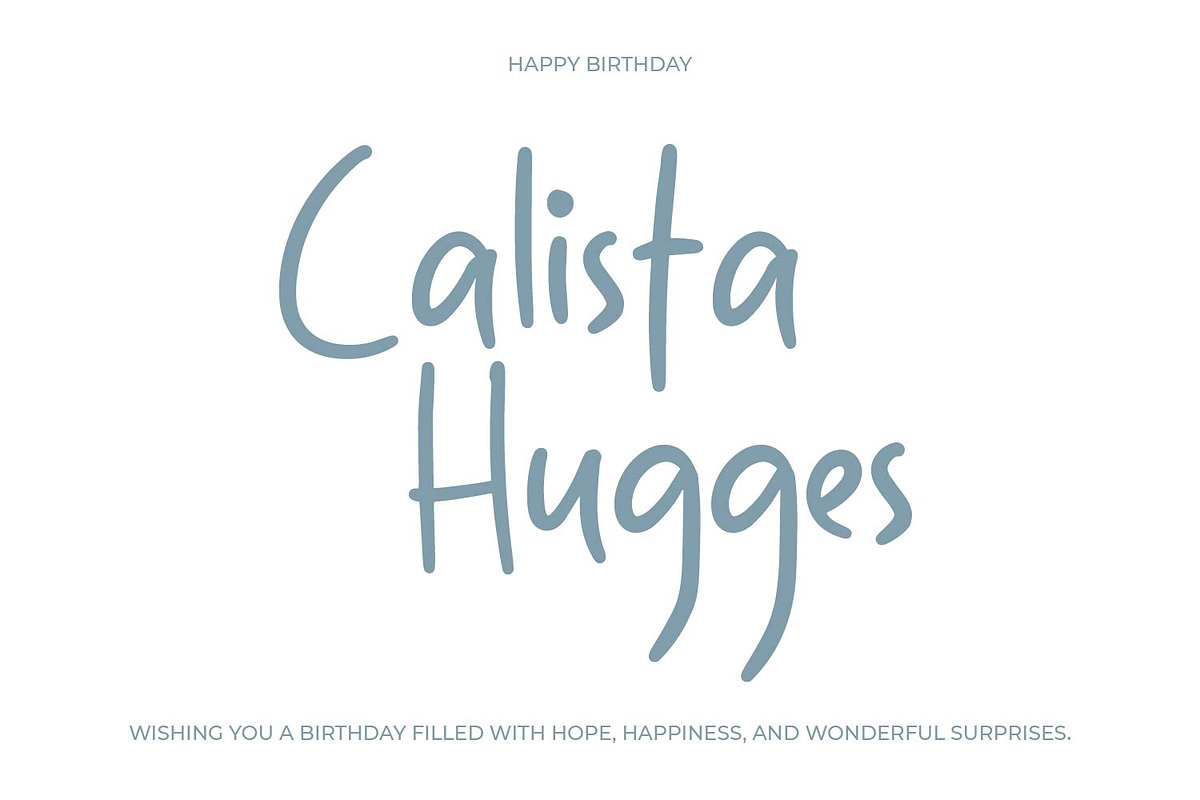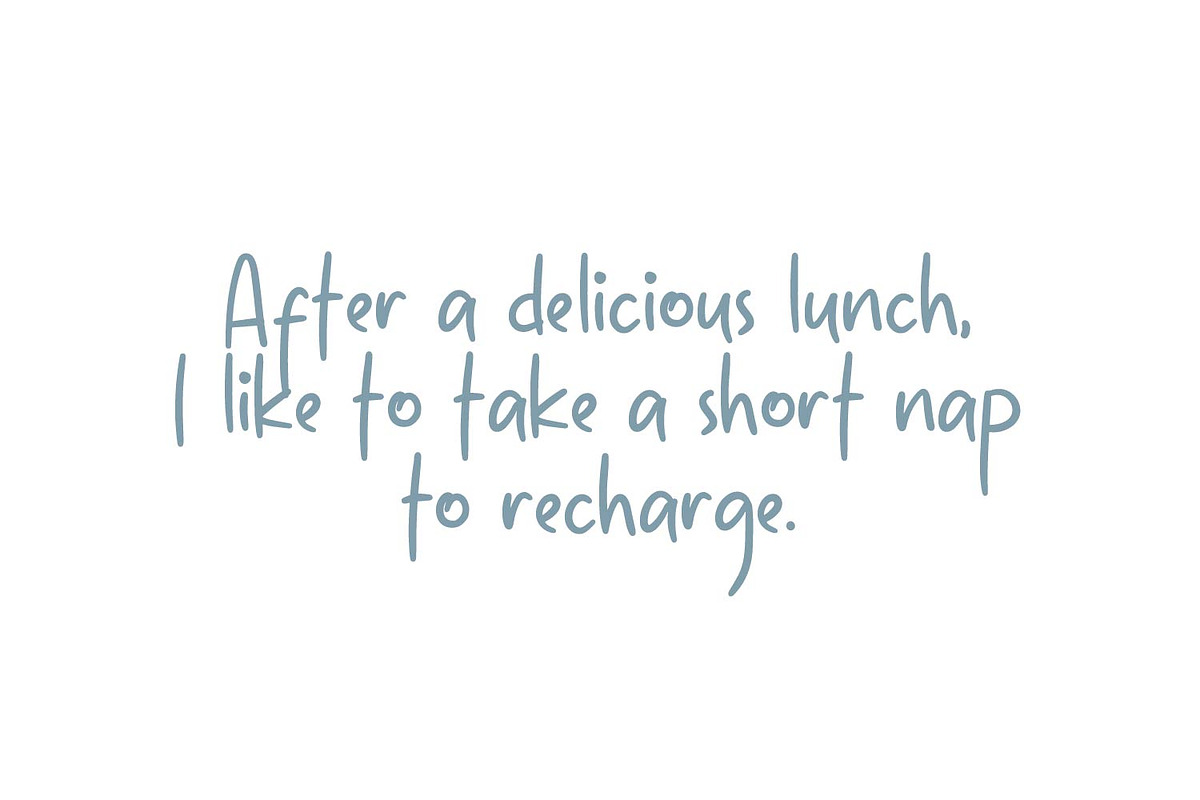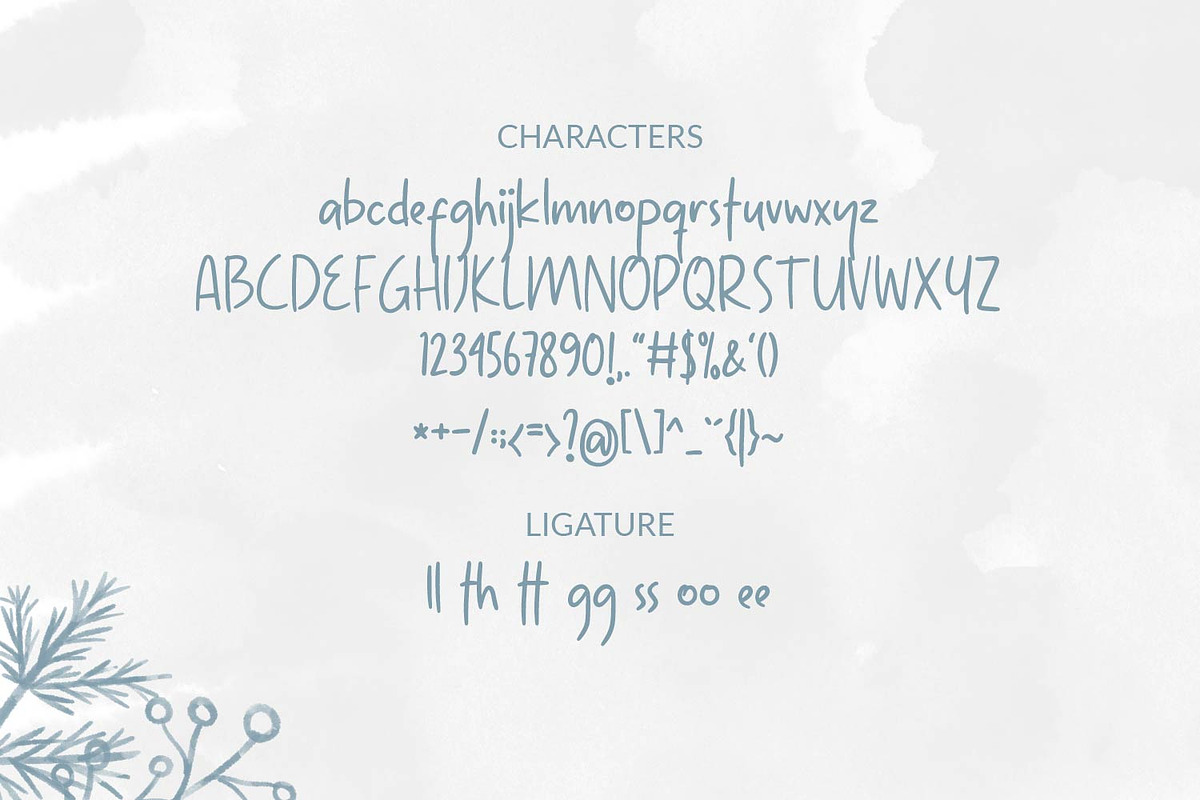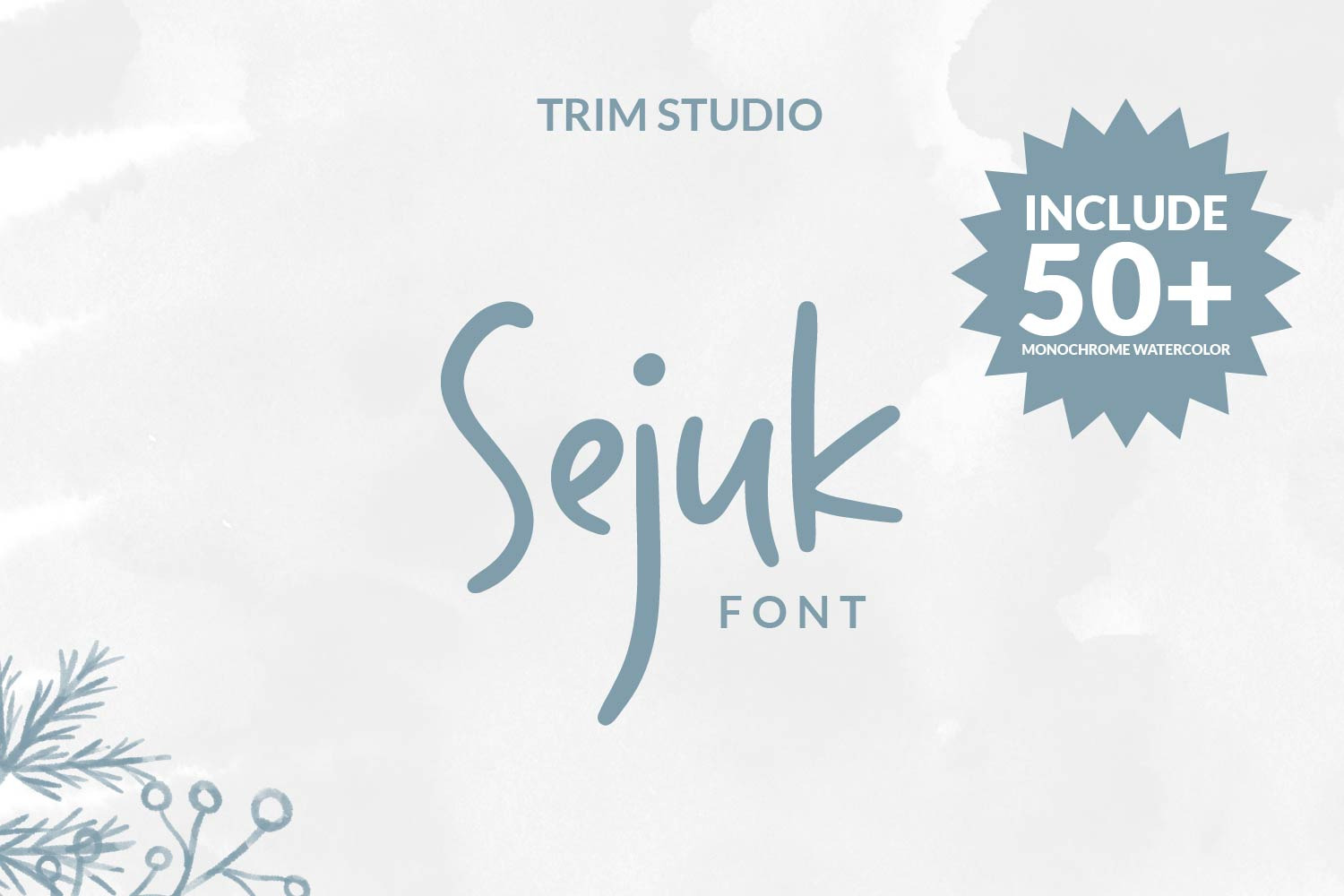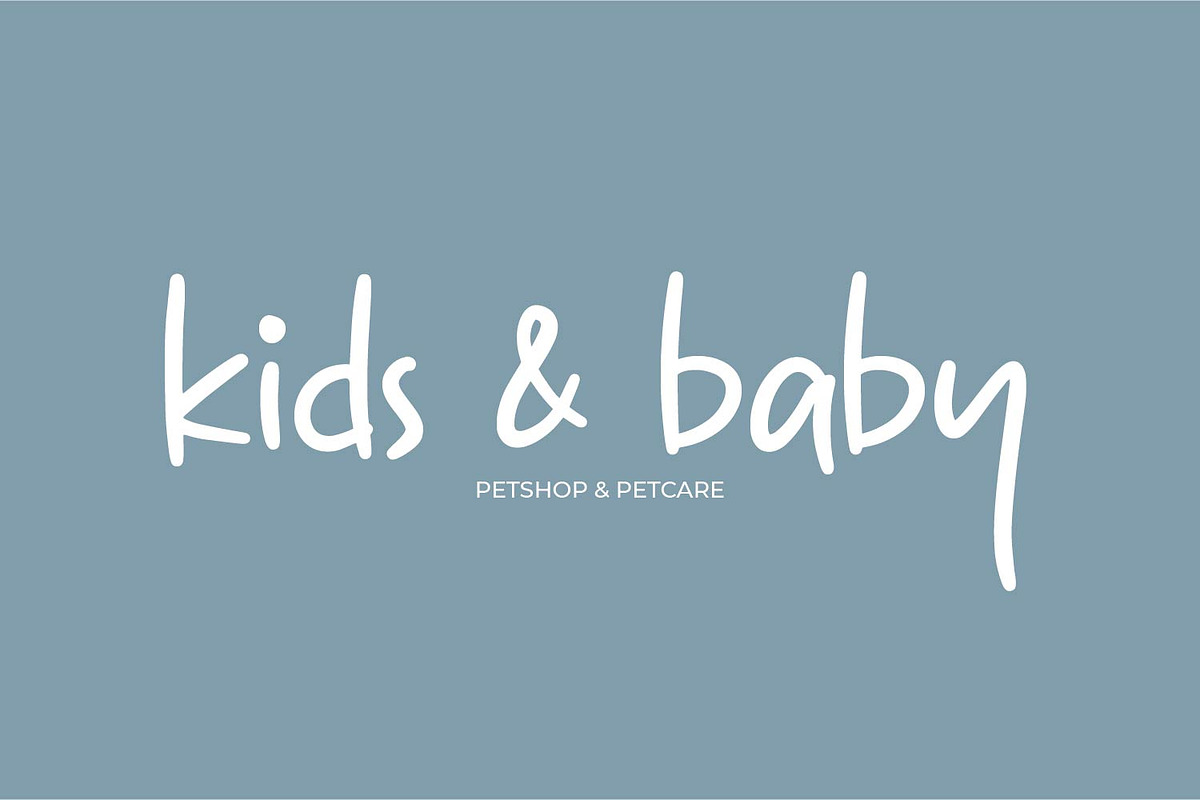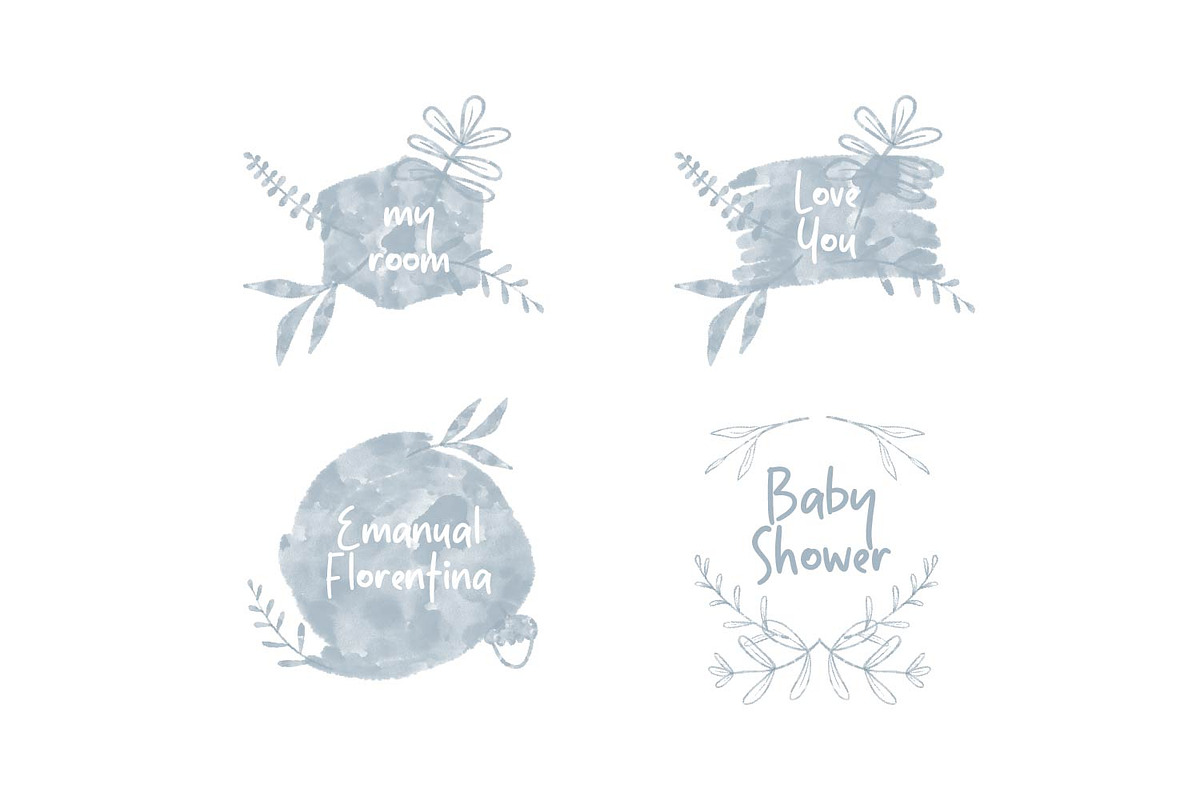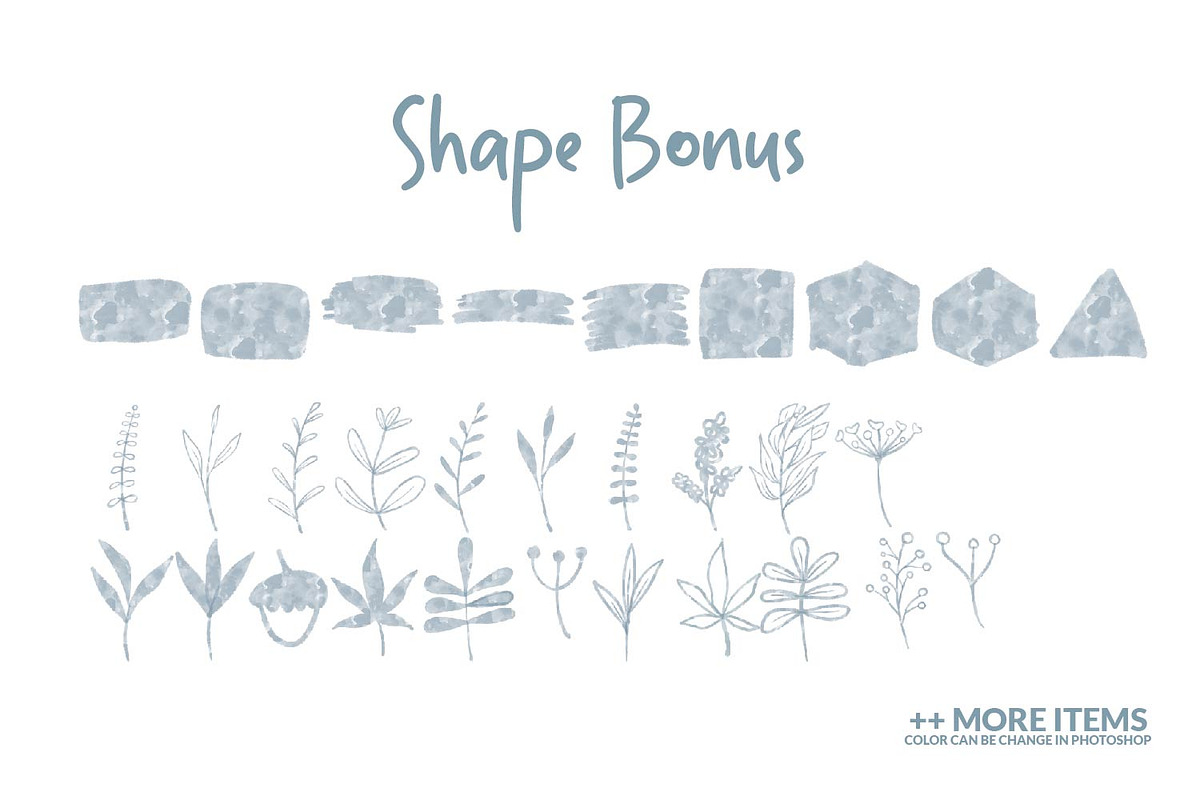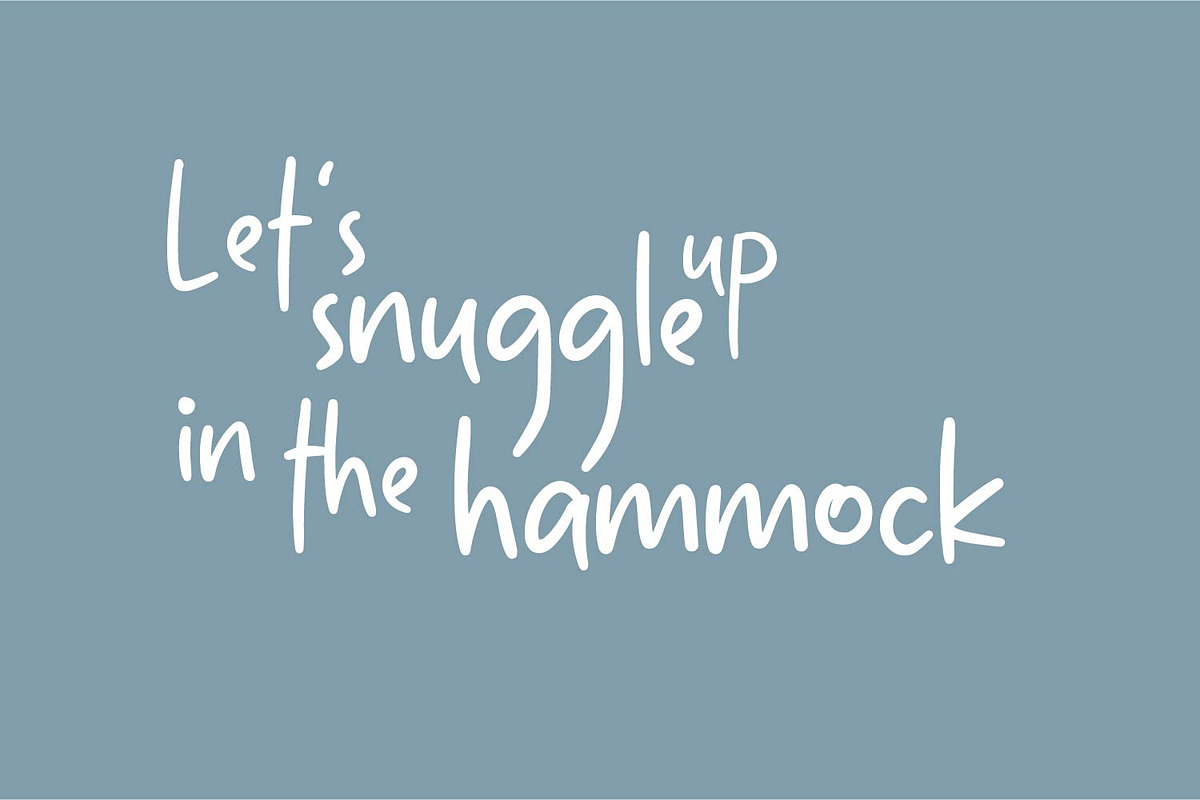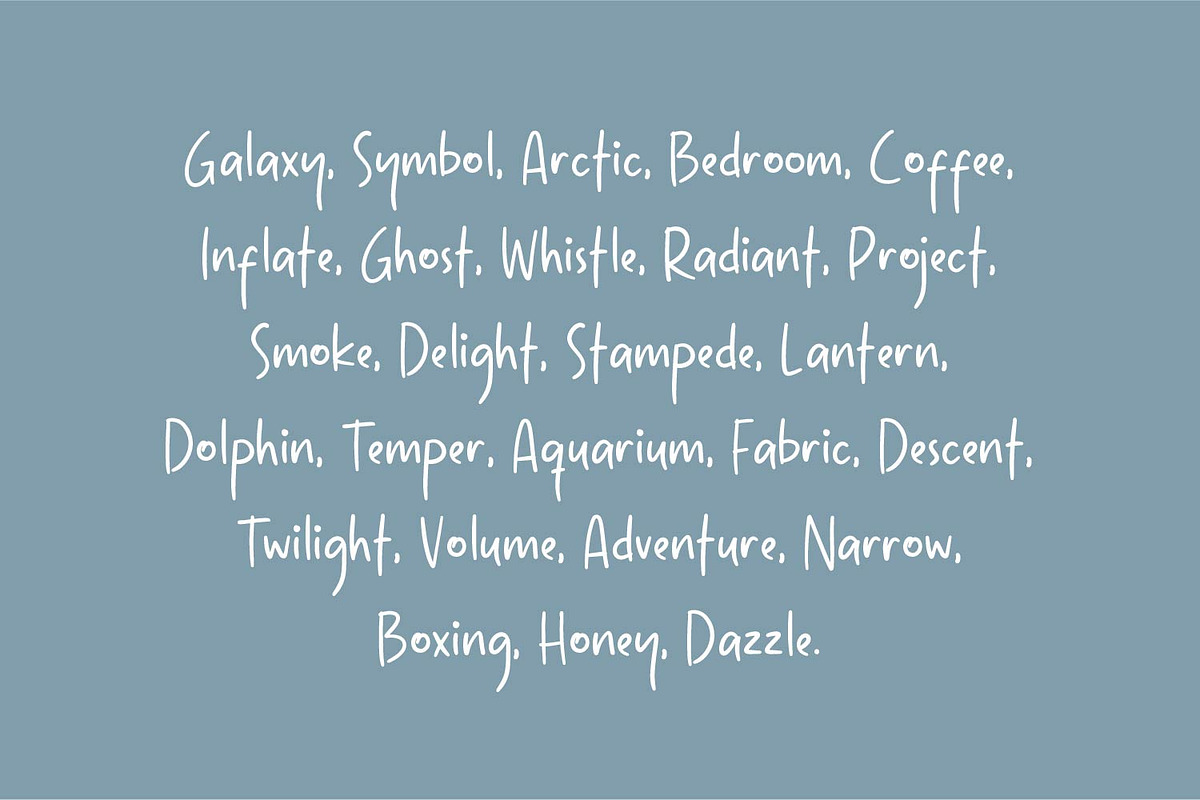
Sejuk - Sweet Happy Font
"Sejuk" font is Indonesian word for not warm not cold,, its balance in temperature, delightful and charming from this font brings a unique blend of calmness and comfort in fun and playful ways. Its gentle curves and rounded edges exude a soothing aura, inviting a sense of tranquility and relaxation. With a touch of whimsy, Sejuk adds an element of playfulness, making it perfect for projects that aim to create a lighthearted and joyful atmosphere.